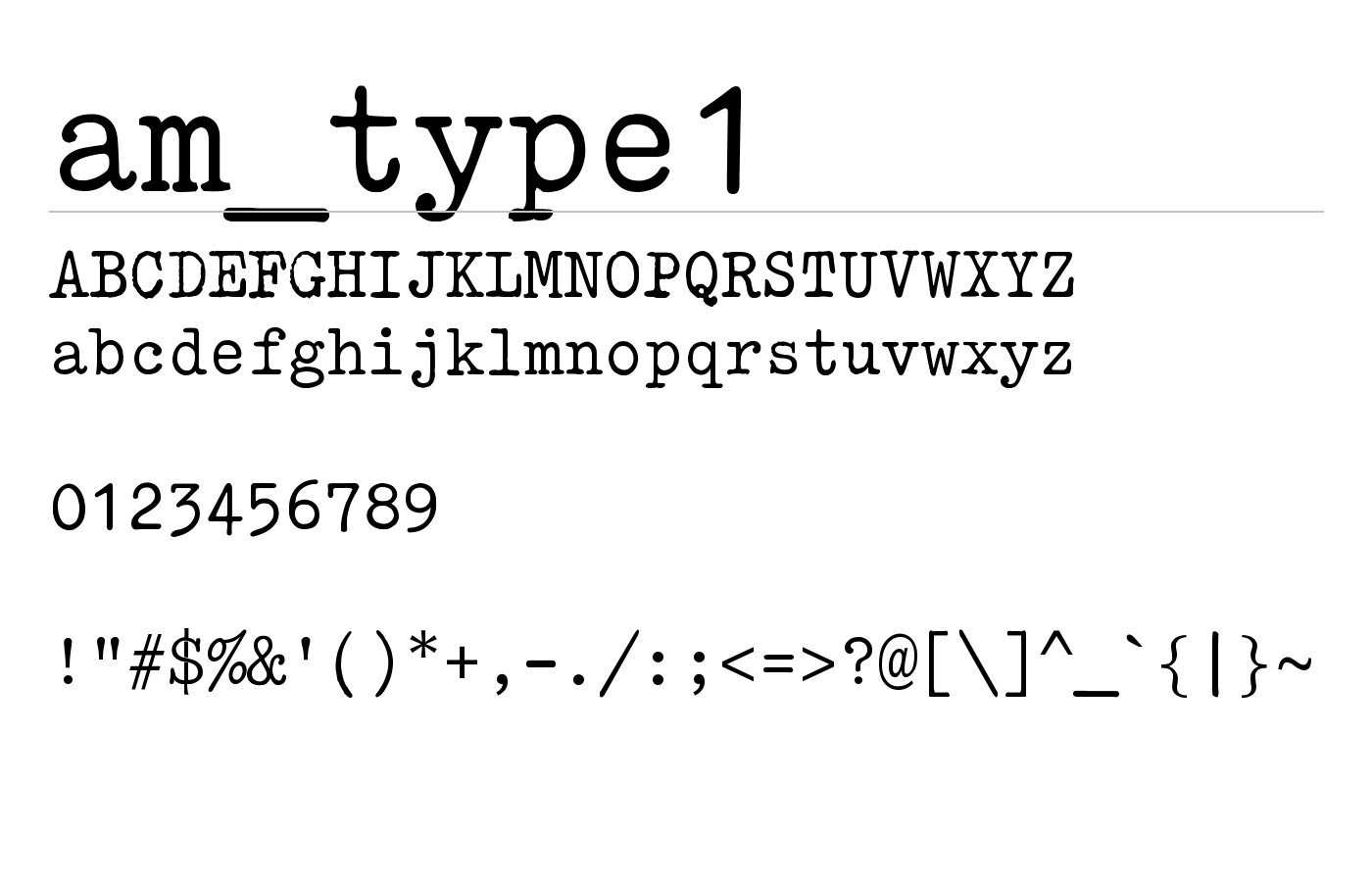
am_type1 is a monospaced typewriter-style font that evokes a vintage, mechanical feel with its uniform stroke weight and rounded, slightly irregular edges. Its clean, consistent letterforms and clear numerals make it ideal for coding, technical documents, or designs seeking a retro or utilitarian character. This font works well in contexts that want to convey simplicity, reliability, or a nostalgic nod to typewritten text.
am_type1 Font
About am_type1 Font